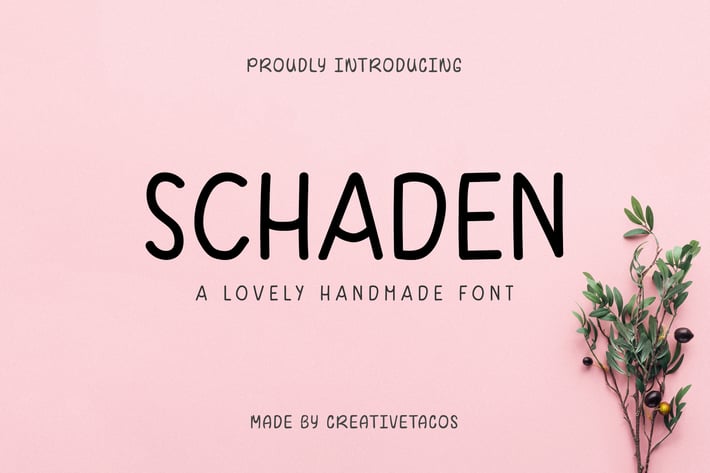
Schaden Handmade Font
Schaden is a simple, lovely and beautiful handwritten font with an elegant touch for your favourite projects which will make you fall in love with its incredibly distinct and timeless style. It contains uppercase letters, lowercase letters, numbers, punctuation, and symbols and supports multilingualism.
Schaden font is excellent for various projects like packaging, presentations, logo, headlines, lettering, posters, branding, quotes, titles, note-making, magazine headings, web layouts, advertising, invitations, packaging design, kid's projects, books, and any creative project you can imagine.
Schaden Font Features:
- Uppercase Letters
- Lowercase Letters
- Support Multilingual